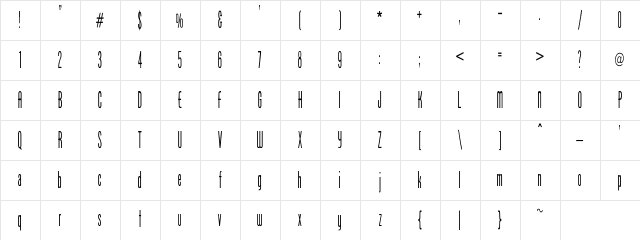
Venus-Normal Regular
Design Context for Venus-Normal
Venus-Normal is a composed and adaptable typeface that performs quietly and consistently across a wide range of design contexts.